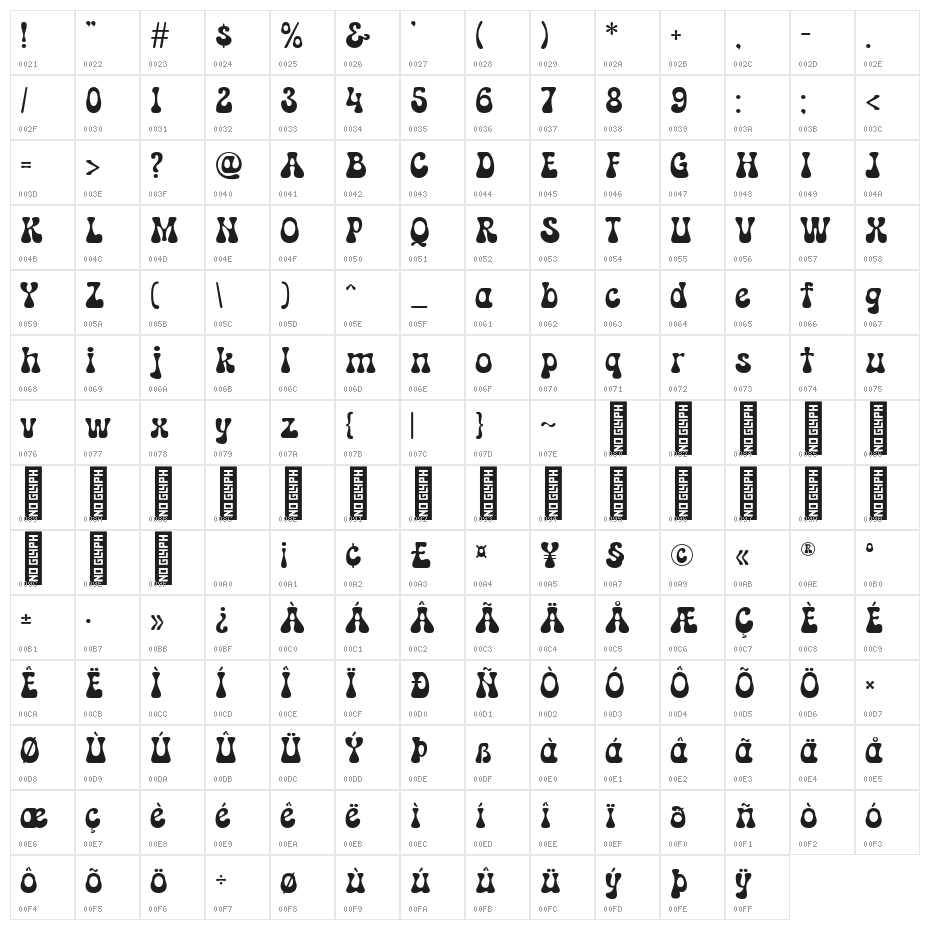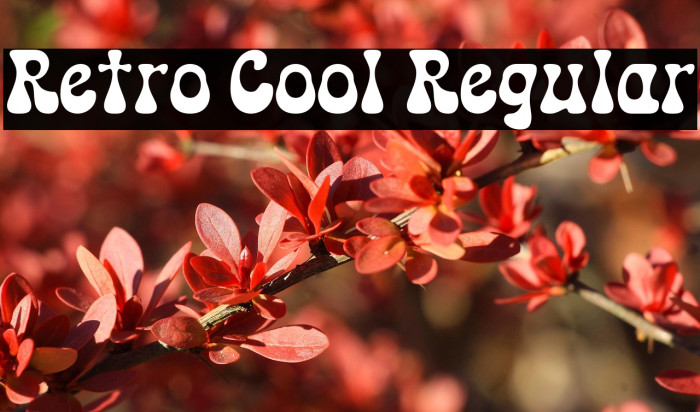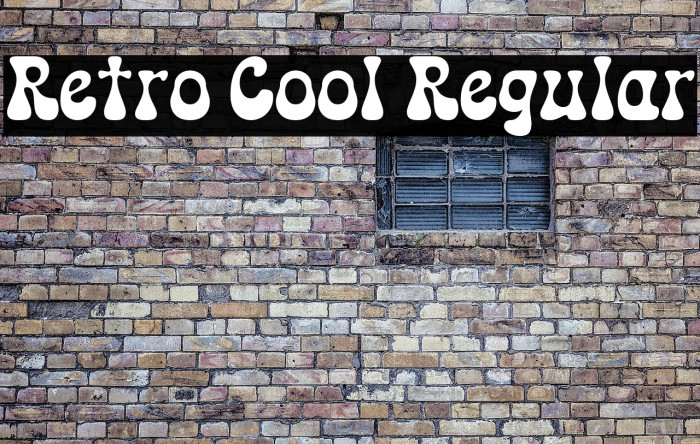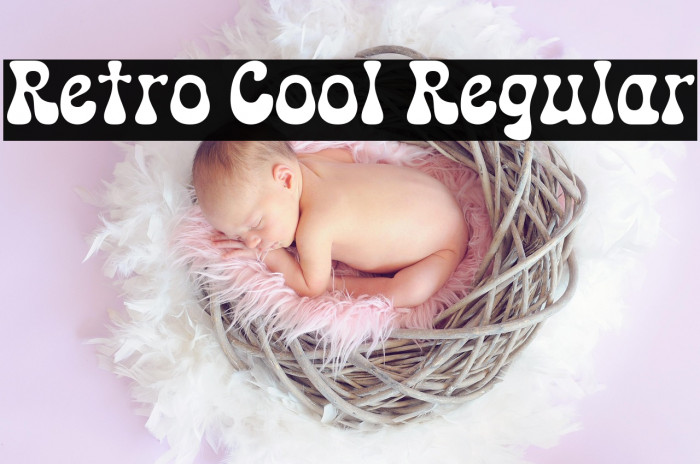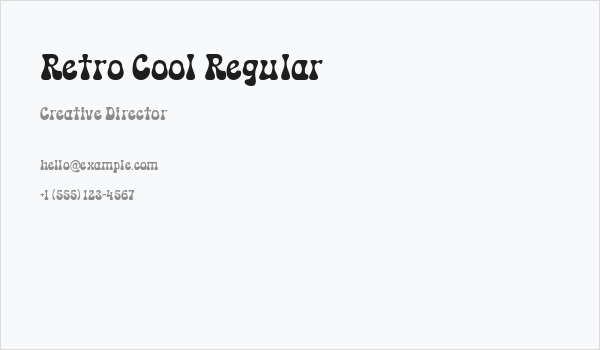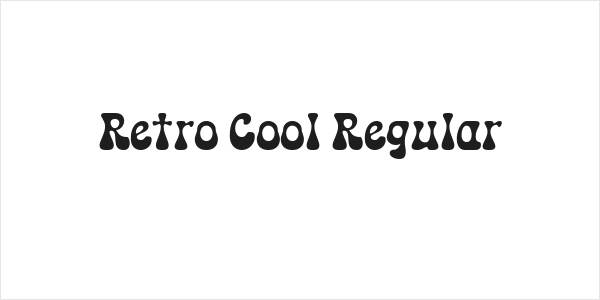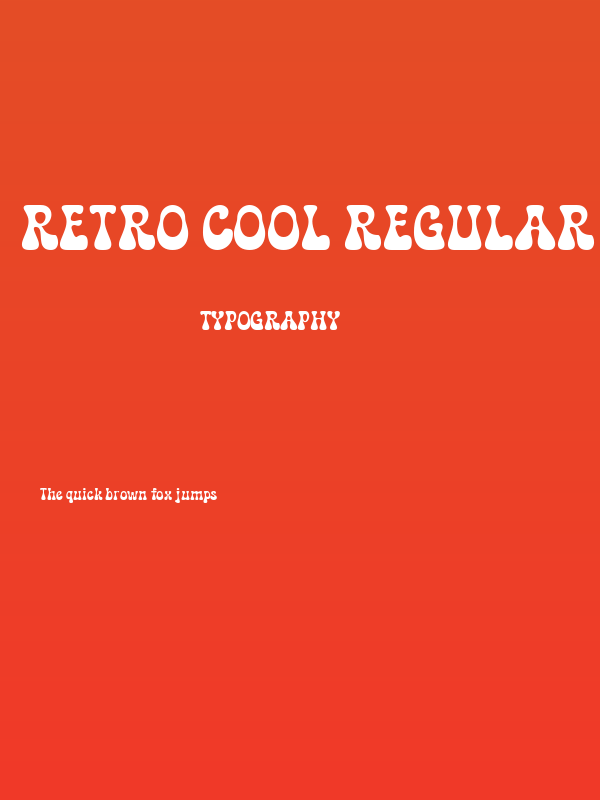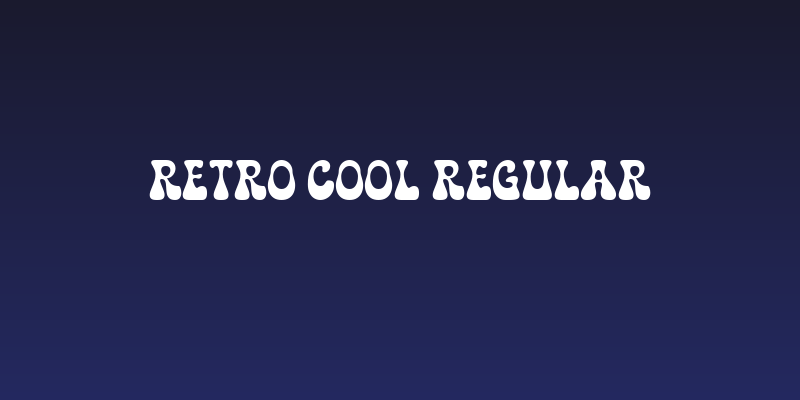
Retro Cool Regular Font
This font exudes a playful and retro vibe, characterized by its bold and rounded letterforms. Each character features a unique, bulbous design with varying stroke widths that create a lively and dynamic appearance. The font's whimsical style is reminiscent of 1960s and 1970s design aesthetics, making it ideal for projects that aim to capture a vintage or nostalgic feel. The exaggerated curves and soft edges contribute to its friendly and approachable look, while the consistent weight across characters ensures readability. This font is particularly suitable for creative and informal applications, where a touch of fun and personality is desired.
| Proposed Projects | Ideal for retro-themed posters, playful branding, children's book covers, and vintage-inspired merchandise. |